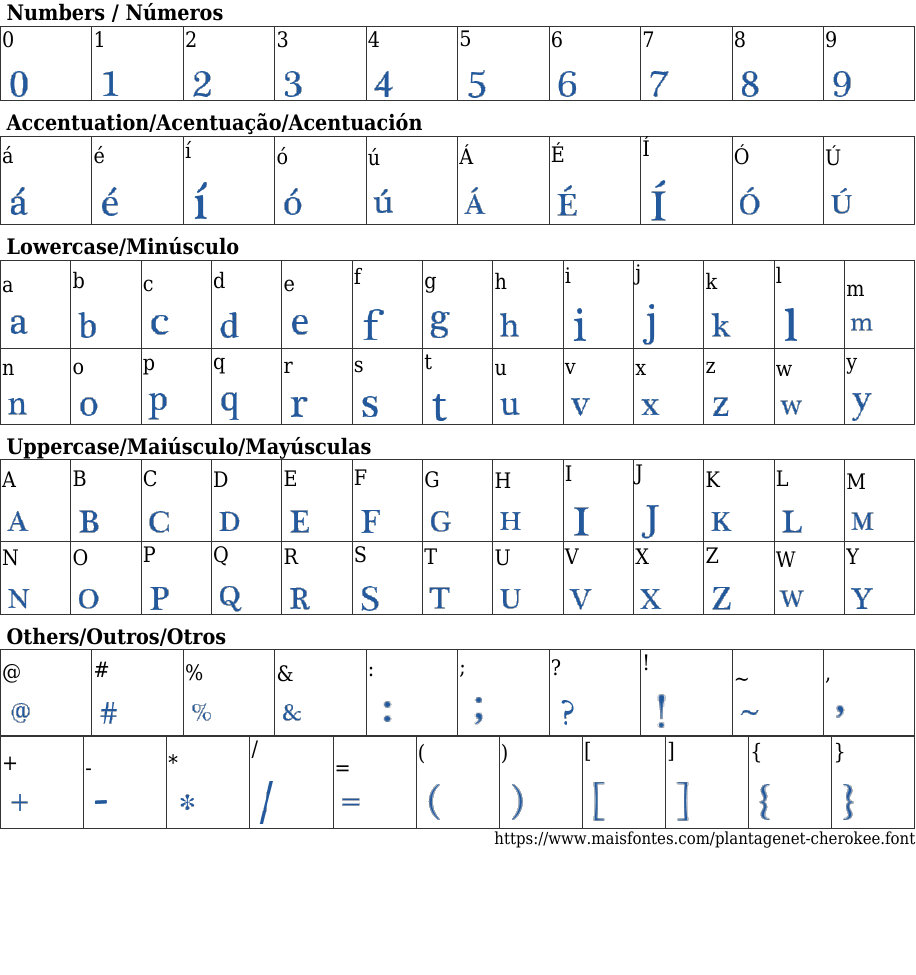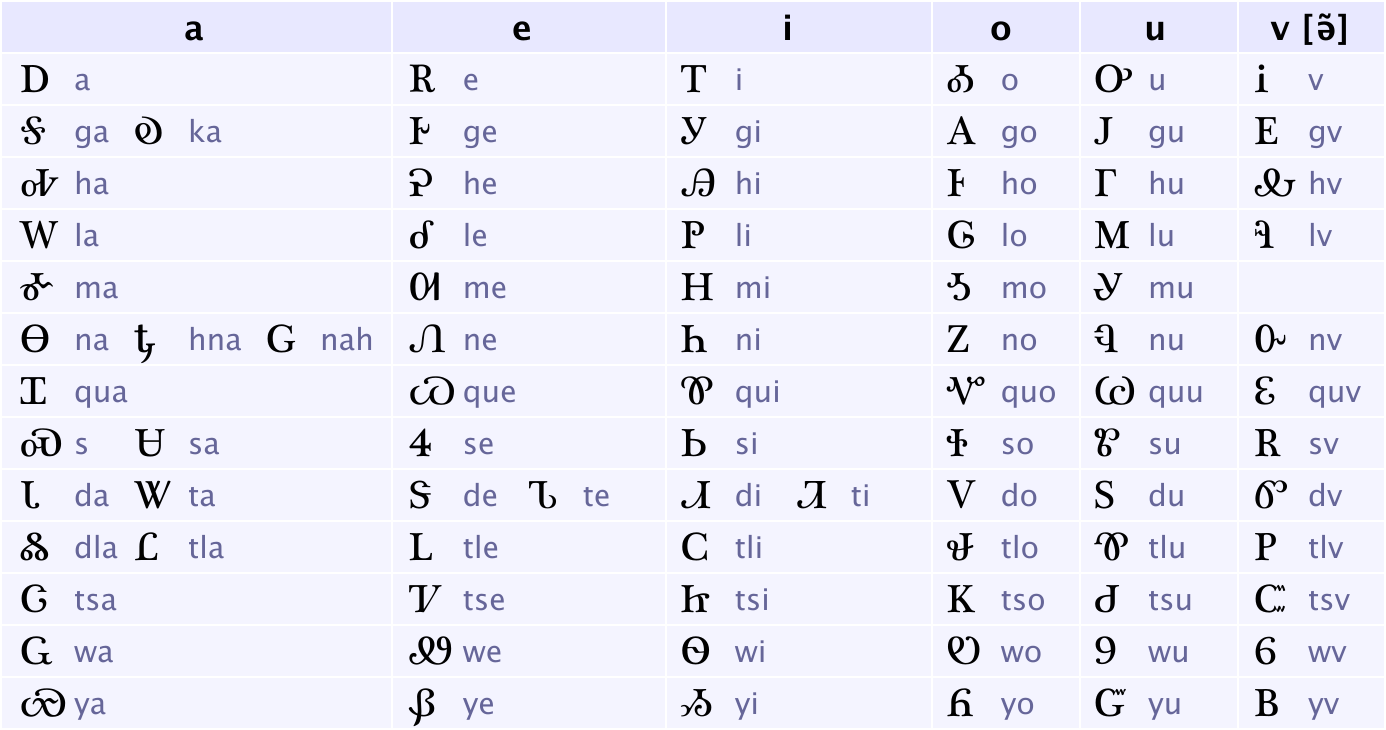
Plantagenet Cherokee Font History . Historically, it looked like a capital lambda (λ), but apparently people were struggling. plantagenet cherokee download plantagenet cherokee for free, view sample text, rating and more on fontsgeek.com. the most notable one though has to be ꮩ do: The font subfamily is regular. The font was designed by ross. version 2 of the plantagenet cherokee font will have the ‘v’ shape at u+13d9 as the default. So it must be that the. plantagenet the typeface is a transitional based on typefaces created by the likes of baskerville in 1757. plantagenet cherokee is the perfect font for all your fun designs.
the most notable one though has to be ꮩ do: The font was designed by ross. plantagenet the typeface is a transitional based on typefaces created by the likes of baskerville in 1757. plantagenet cherokee is the perfect font for all your fun designs. version 2 of the plantagenet cherokee font will have the ‘v’ shape at u+13d9 as the default. plantagenet cherokee download plantagenet cherokee for free, view sample text, rating and more on fontsgeek.com. Historically, it looked like a capital lambda (λ), but apparently people were struggling. So it must be that the. The font subfamily is regular.
Plantagenet Cherokee Font History Historically, it looked like a capital lambda (λ), but apparently people were struggling. version 2 of the plantagenet cherokee font will have the ‘v’ shape at u+13d9 as the default. The font was designed by ross. The font subfamily is regular. So it must be that the. the most notable one though has to be ꮩ do: plantagenet cherokee is the perfect font for all your fun designs. Historically, it looked like a capital lambda (λ), but apparently people were struggling. download plantagenet cherokee for free, view sample text, rating and more on fontsgeek.com. plantagenet the typeface is a transitional based on typefaces created by the likes of baskerville in 1757. plantagenet cherokee plantagenet cherokee